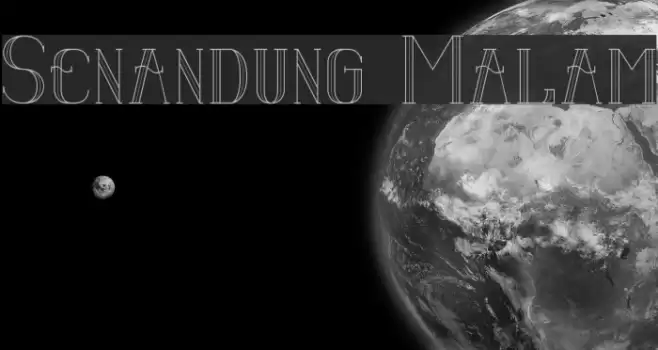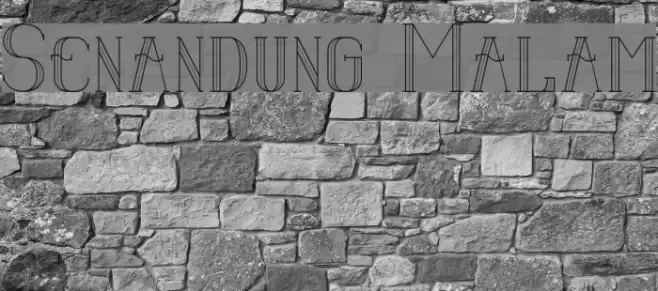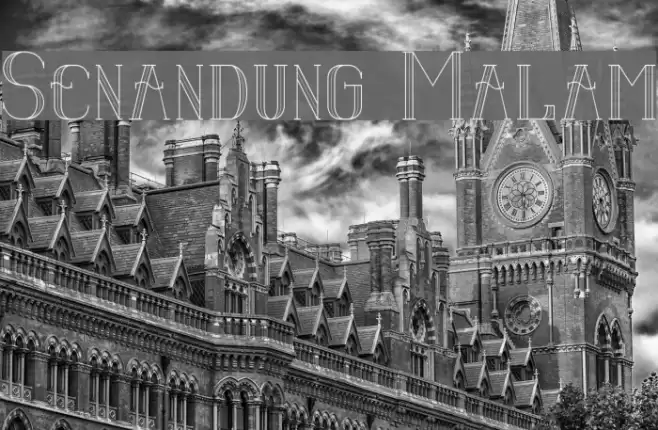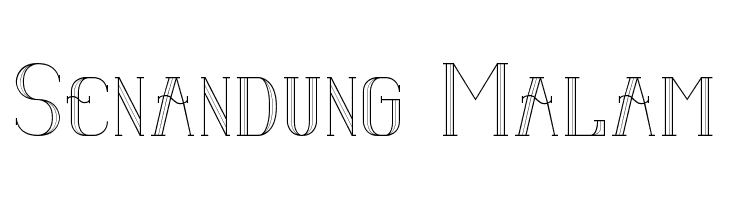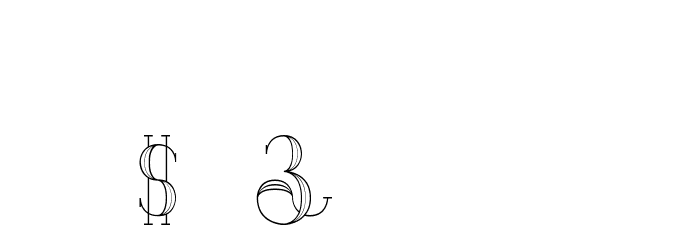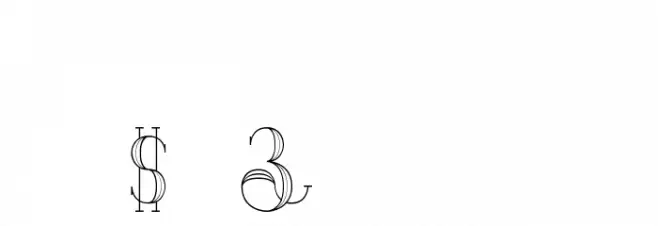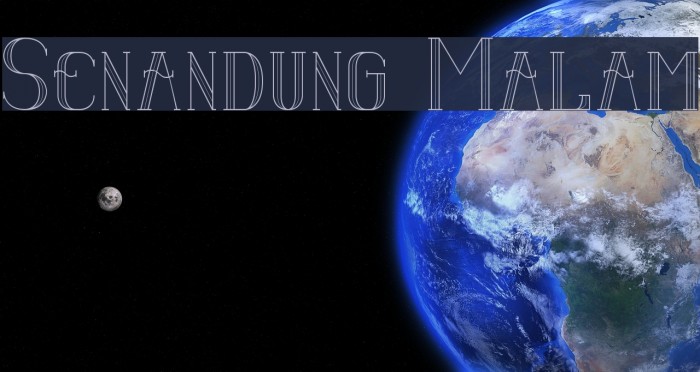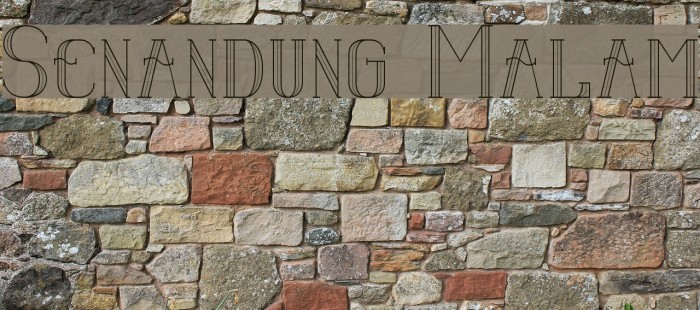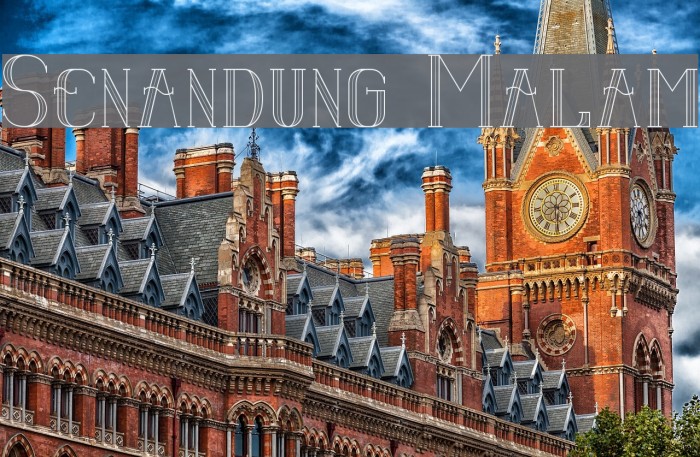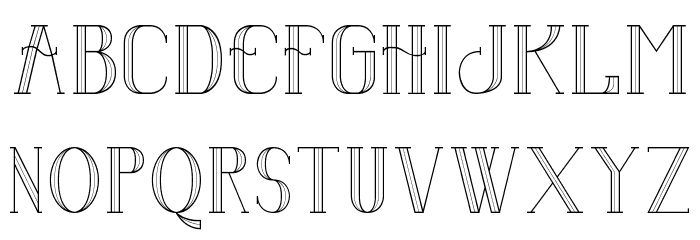
Senandung Malam Font
Senandung Malam Description
This font features a unique and artistic design with a decorative flair. Each letter is crafted with intricate line work, creating a sense of movement and elegance. The uppercase letters are particularly striking, with a blend of straight lines and curves that give them a sophisticated appearance. The overall style is reminiscent of Art Deco, with a modern twist that makes it suitable for contemporary designs. The characters are well-spaced, allowing for readability while maintaining their decorative nature. This font is ideal for projects that require a touch of elegance and creativity, such as invitations, posters, and branding materials.
An artistic and decorative font with intricate line work and an Art Deco influence from Uncategorized fonts.
- Proposed Projects: Ideal for invitations, posters, branding, and any project needing an elegant, creative touch.